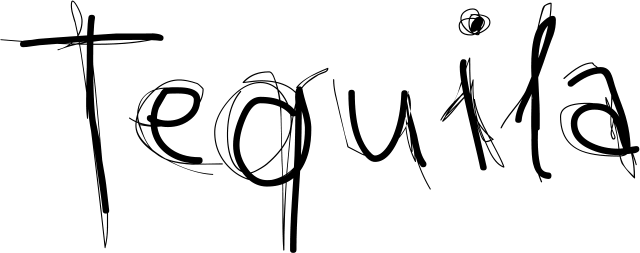
Tequila Font
Tequila font characters look like irregular and chaotic lines. If your eye falls on the label of the bottle after each shot of Tequila, be sure to get an idea from it and use it in your designs.
This emo font is similar to the draft designs, which means you can use many effects with elements such as bottles, kids’ events, and flyers. This font supports all characters, so you can focus on untidy label design.